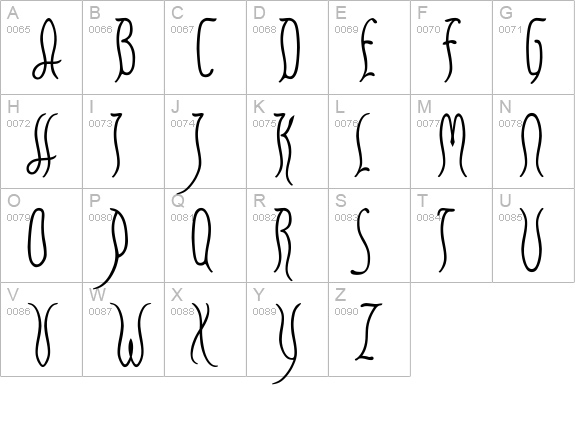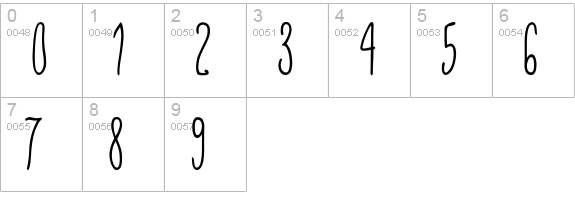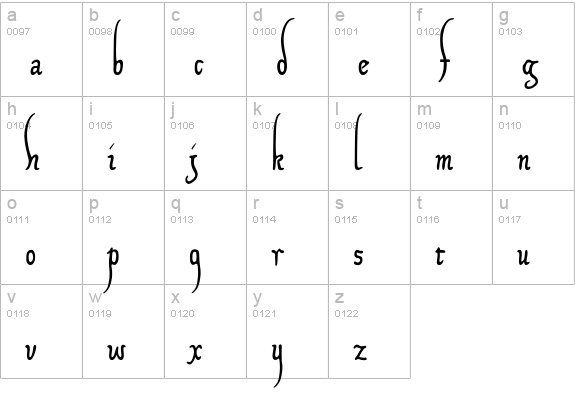
XIPAROS Font Details
Introducing XIPAROS - a modern and stylish font that is sure to elevate your designs to the next level. XIPAROS features sleek lines and a contemporary feel, making it perfect for a wide range of projects. Whether you're working on branding, advertising, or any other creative endeavor, XIPAROS is the perfect choice to make your text stand out. Best of all, XIPAROS is completely free to download at FontsMarket.com. That's right - you can access this stunning font at no cost, allowing you to add a touch of sophistication to your designs without breaking the bank. Don't miss out on the opportunity to enhance your projects with the elegant and versatile XIPAROS font. Download it today and see the difference it can make!